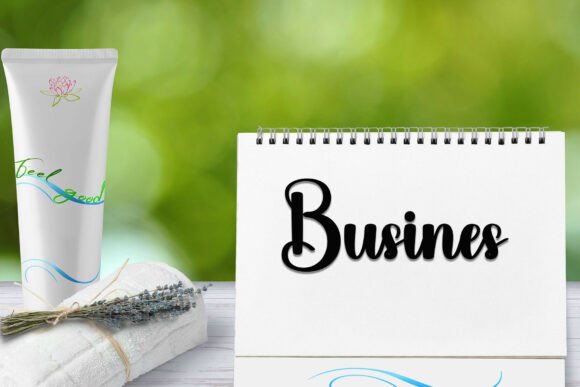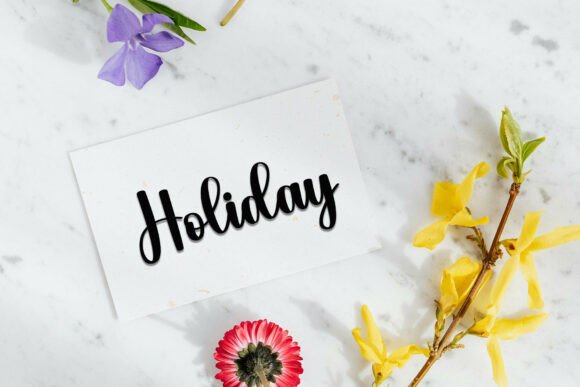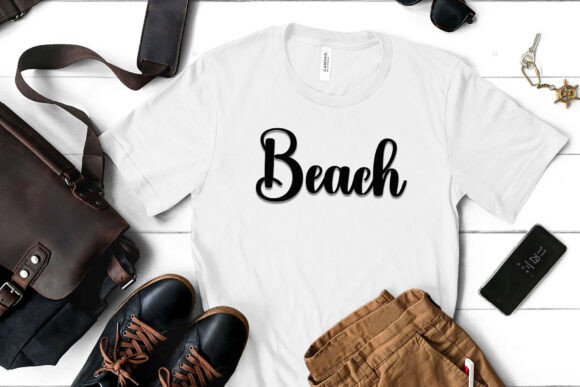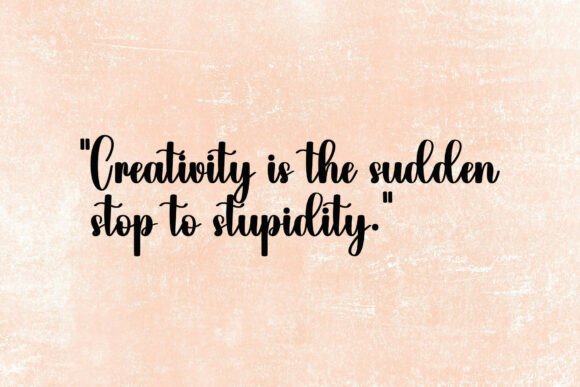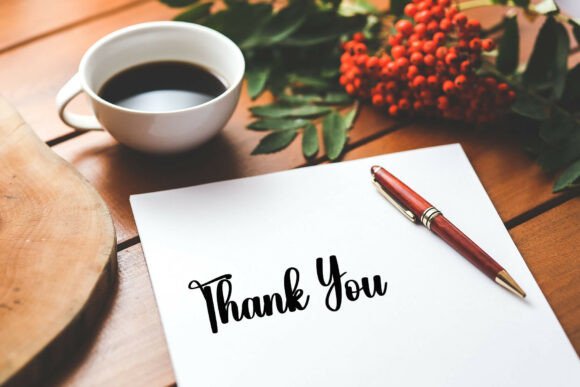
Introducing Chubby Font: The Ultimate Friendly Handwritten Font for Designers and Crafters
Are you tired of using the same old fonts for your creative projects? Look no further! Chubby Font is here to revolutionize the way you approach typography. This adorable, casual handwritten font is designed to bring a friendly and approachable feel to any design, making it perfect for a wide range of creative applications.
What is Chubby Font?
Chubby Font is a carefully crafted handwritten font that exudes warmth and friendliness. Its unique, bubbly letterforms are designed to make your designs stand out from the crowd, adding a touch of personality and whimsy to any project. Whether you’re a designer, crafter, or DIY enthusiast, Chubby Font is the perfect choice for anyone looking to add a dash of creativity and fun to their work.
Key Features of Chubby Font
- Cute and Casual Design: Chubby Font boasts a playful, informal design that’s perfect for creating eye-catching headlines, captions, and quotes.
- Handwritten with Love: Each letterform is carefully handcrafted to ensure a personal and friendly feel that’s hard to resist.
- Incredibly Friendly Feel: Chubby Font is designed to make your audience feel at ease, making it perfect for designs that require a approachable and welcoming tone.
- Multipurpose: From Instagram graphics to calligraphy scripts, Chubby Font is versatile enough to be used in a wide range of creative projects.
Use Cases for Chubby Font
So, what can you create with Chubby Font? The possibilities are endless! Here are a few ideas to get you started:
- Instagram Graphics: Add a pop of personality to your Instagram feed with Chubby Font. Use it to create eye-catching captions, quotes, and stories that will make your followers smile.
- DIY Projects: Take your DIY projects to the next level with Chubby Font. Use it to create beautiful calligraphy scripts, handmade cards, and other paper crafts.
- Branding and Packaging: Add a touch of whimsy to your brand’s packaging and marketing materials with Chubby Font. It’s perfect for creating friendly and approachable brand identities.
- Stationery and Invitations: Create adorable stationery, invitations, and greeting cards with Chubby Font. It’s sure to make your correspondence stand out.
Tips for Using Chubby Font
To get the most out of Chubby Font, here are a few tips to keep in mind:
- Mix and Match: Combine Chubby Font with other fonts to create interesting and dynamic typography.
- Play with Size and Color: Experiment with different font sizes and colors to add visual interest to your designs.
- Add Illustrations: Pair Chubby Font with illustrations and graphics to create engaging and interactive designs.
In conclusion, Chubby Font is a one-of-a-kind handwritten font that’s sure to bring a smile to your audience’s face. With its cute and casual design, incredibly friendly feel, and multipurpose versatility, it’s the perfect choice for designers, crafters, and DIY enthusiasts alike. So why wait? Download Chubby Font today and start turning your creative ideas into true pieces of art!